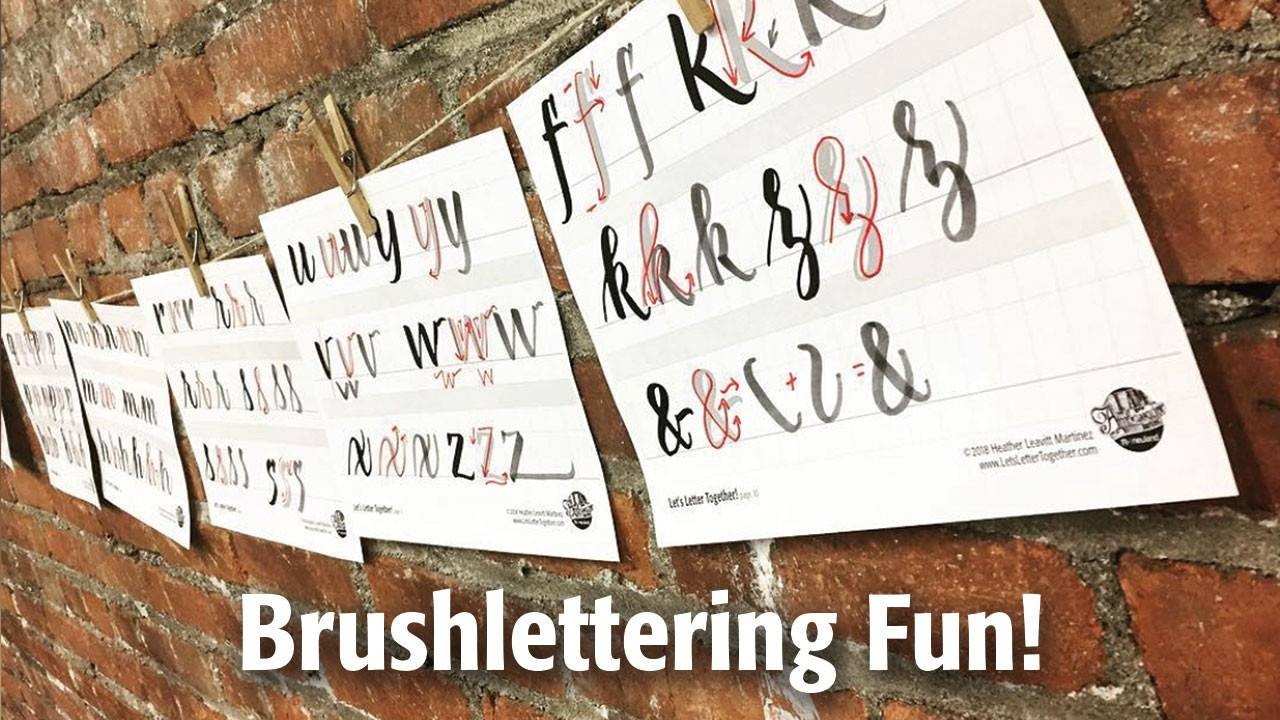
Make beautiful letters with ease—no experience required!
Join professional lettering artist Heather Leavitt Martinez for a hands-on brush lettering experience designed to help you build confidence, control, and creativity with your lettering tools.
What You’ll Learn:
- Essential tools of the trade
- Warm-up techniques for smoother strokes
- Lowercase and uppercase letterforms
- Best practices for practice (so you see real progress!)
- Scaling your letters up and down
- Adding bounce for playful brush lettering styles
- Marker maintenance + bonus tips to keep your tools in top shape
While there are many forms of brush lettering, this course focuses on a legible, italic-based script that you can easily personalize to suit your style.